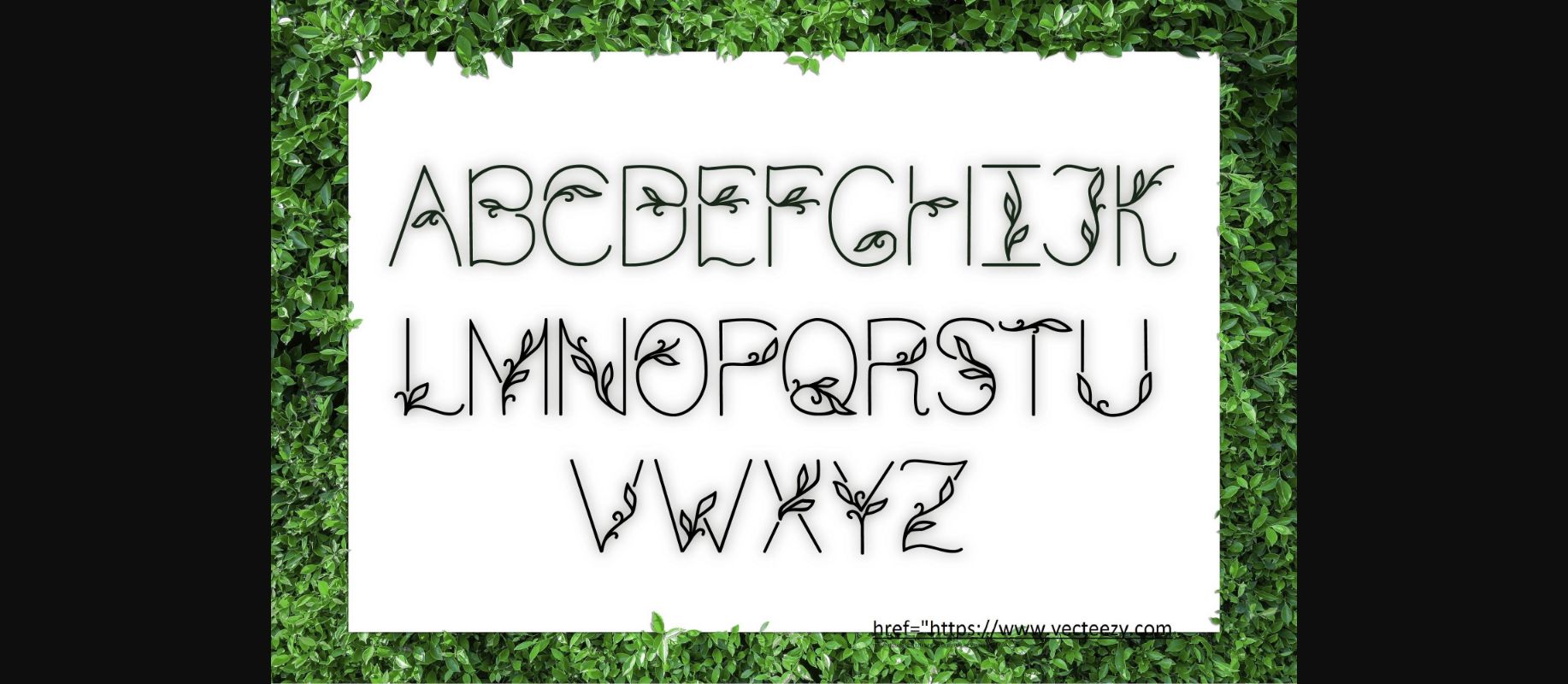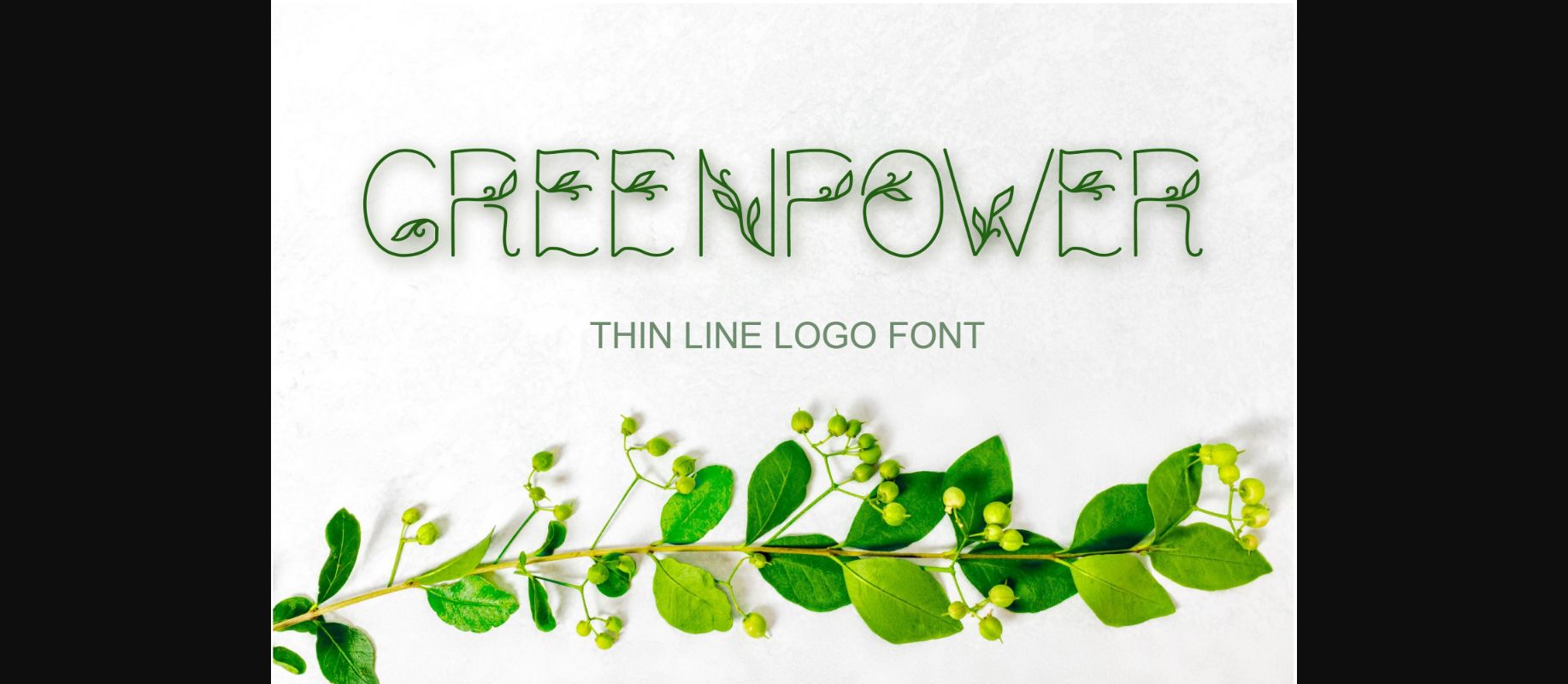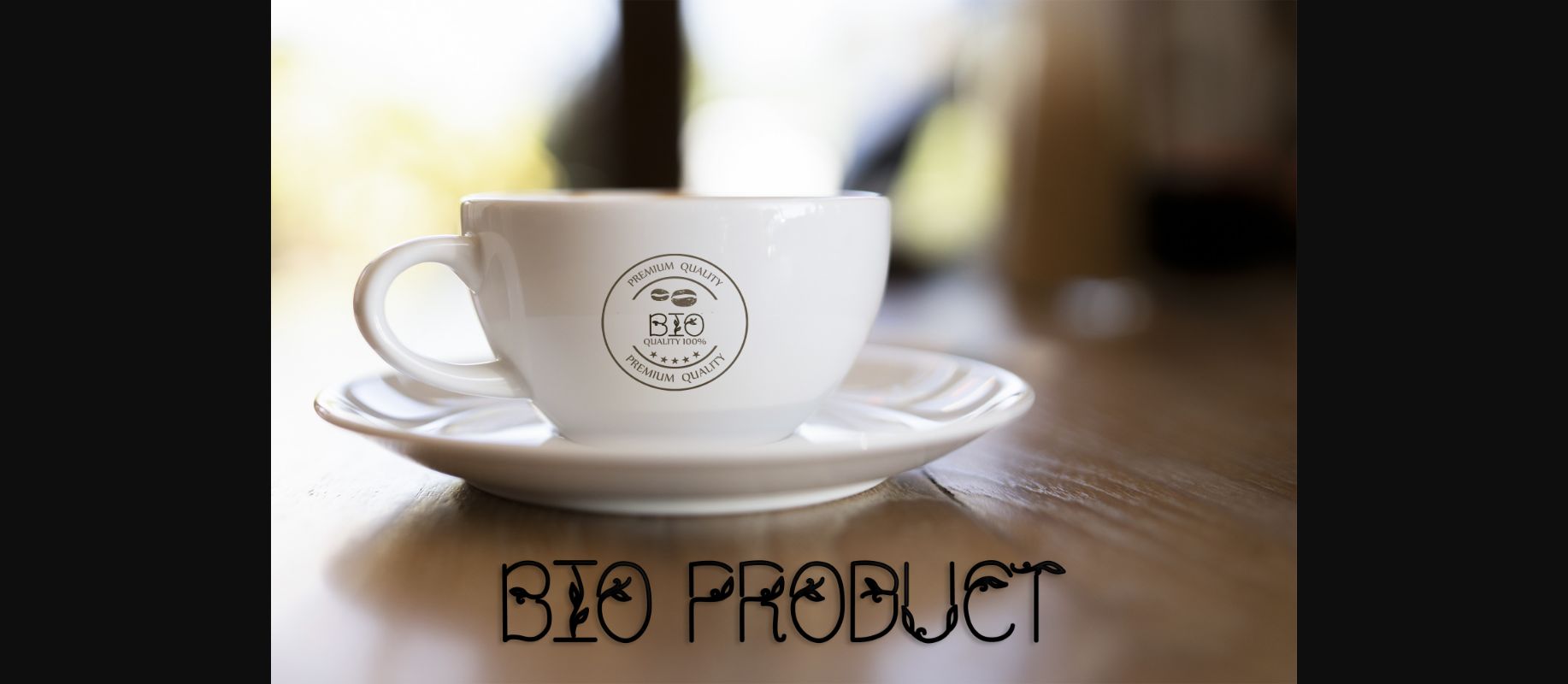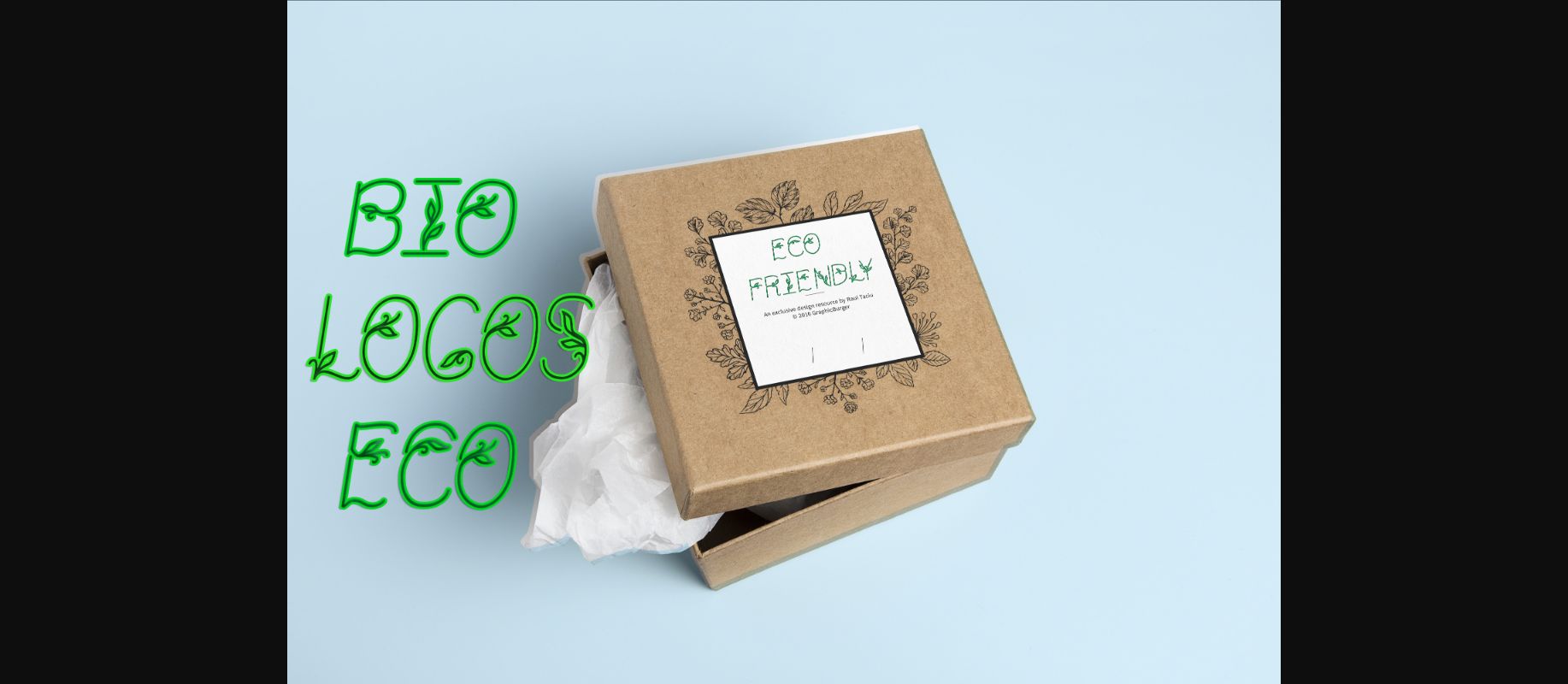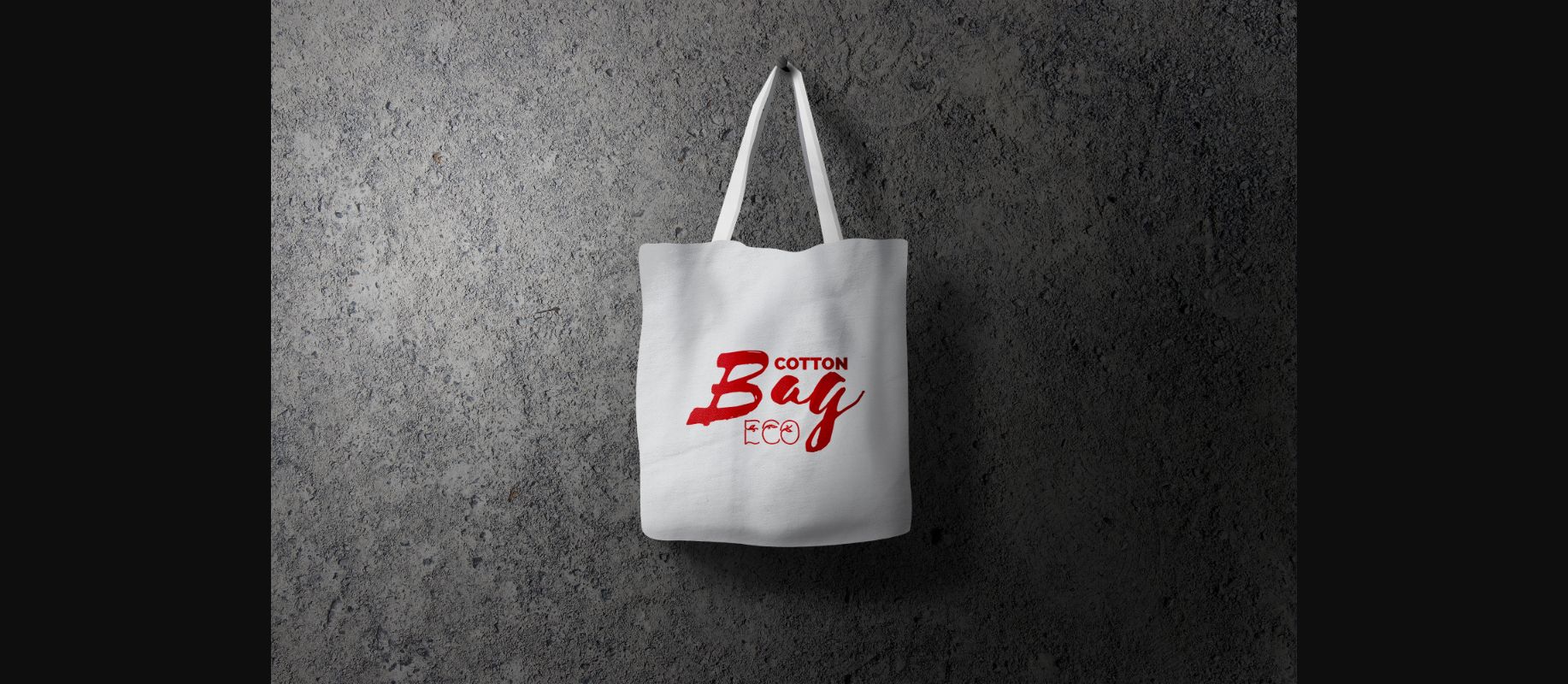
About Greenpower Font
Greenpower is a romantic and feminine decorative font featuring and eco-friendly minimalistic art. This typeface works great for product branding, packaging, homeware designs, quotes, posters, and any other projects that need a beautiful touch.